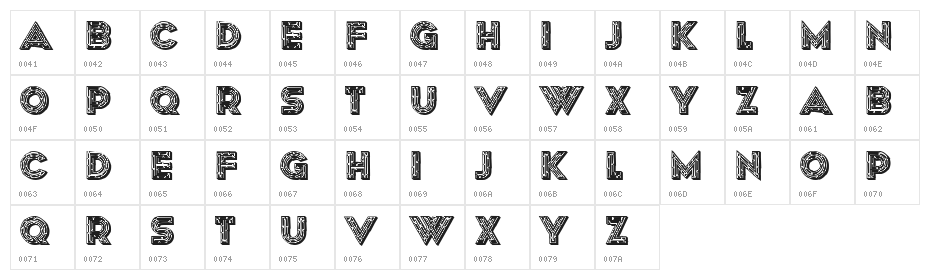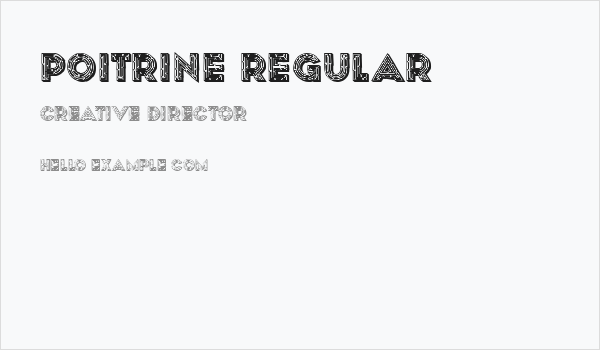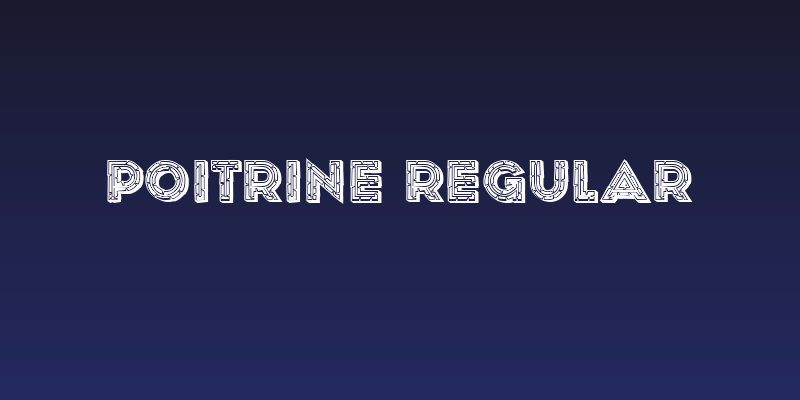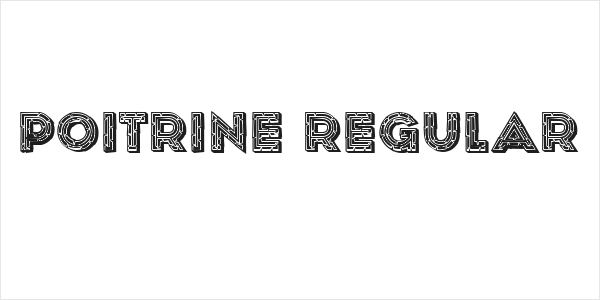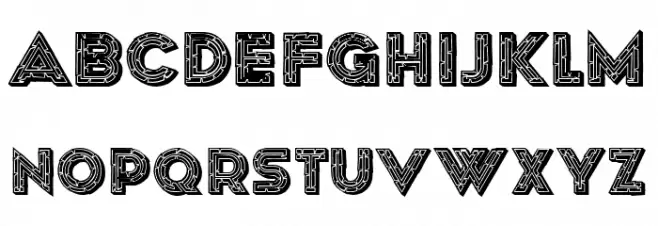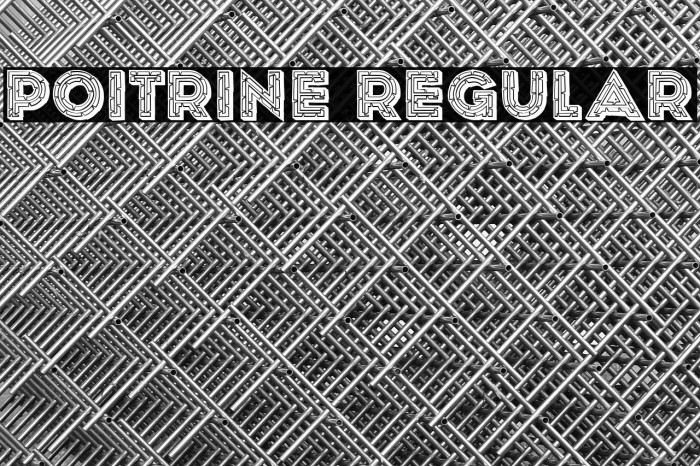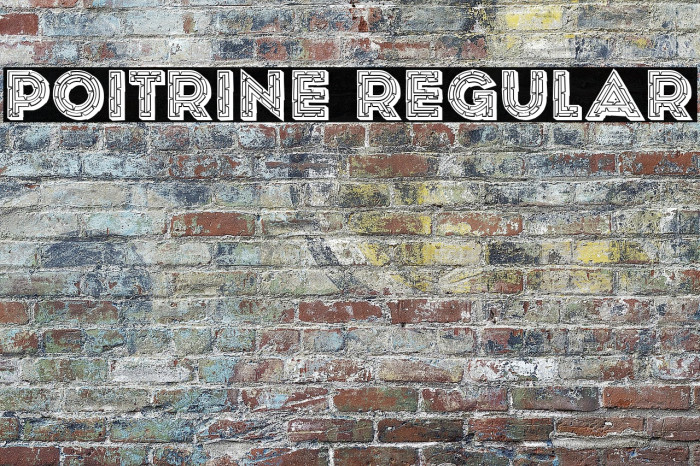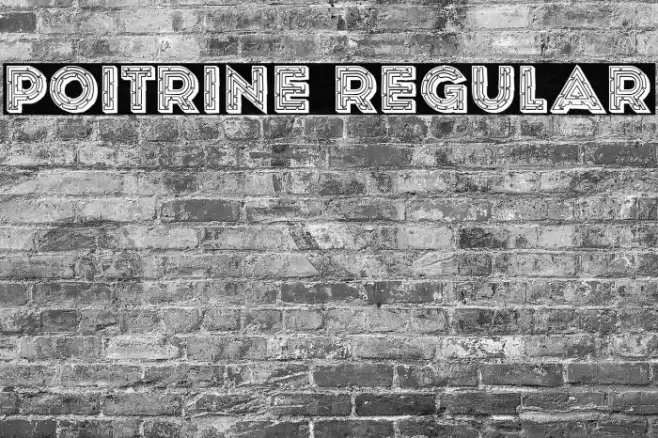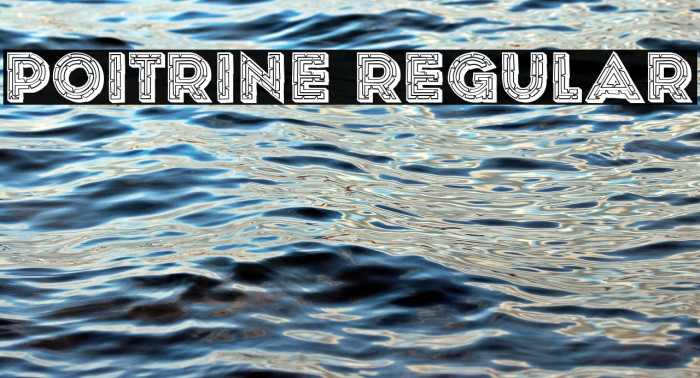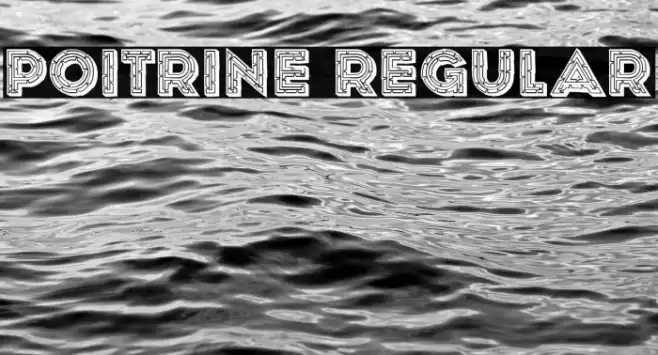
Poitrine Regular Font
Poitrine Regular Description
This font features a bold, decorative style with intricate line patterns within each character. The uppercase letters are designed with a geometric flair, incorporating sharp angles and a sense of depth through the use of internal lines. The overall appearance is striking and eye-catching, making it suitable for projects that require a strong visual impact. The characters are evenly spaced, ensuring readability while maintaining their unique design. This font's distinct style is ideal for creative and artistic projects where a bold statement is desired.
| Proposed Projects | Ideal for posters, logos, branding, and artistic projects that require a bold visual impact. |